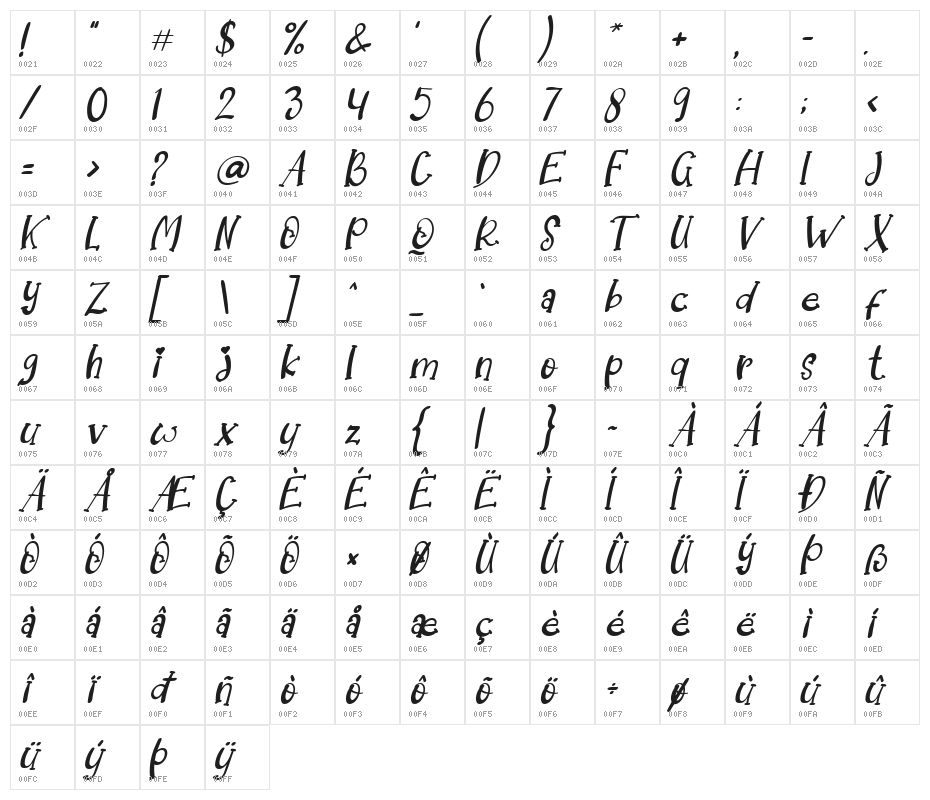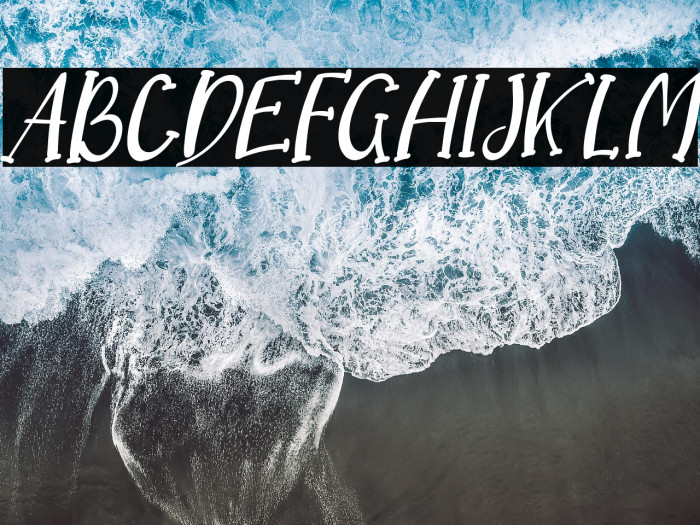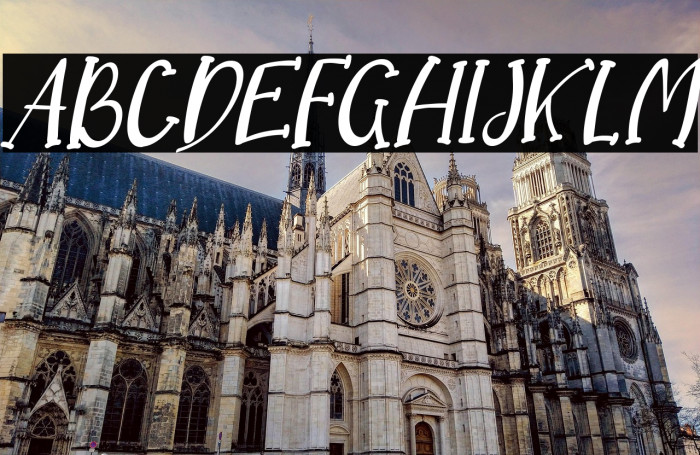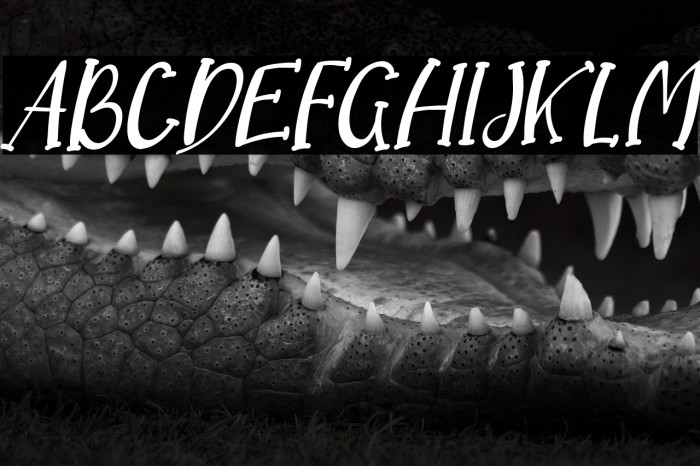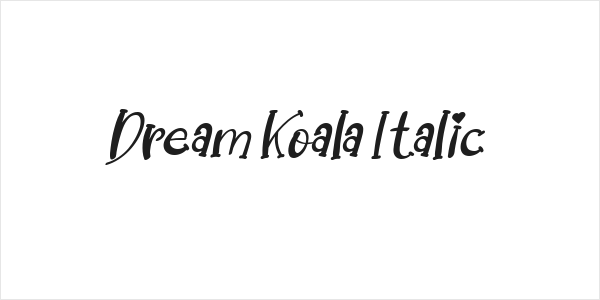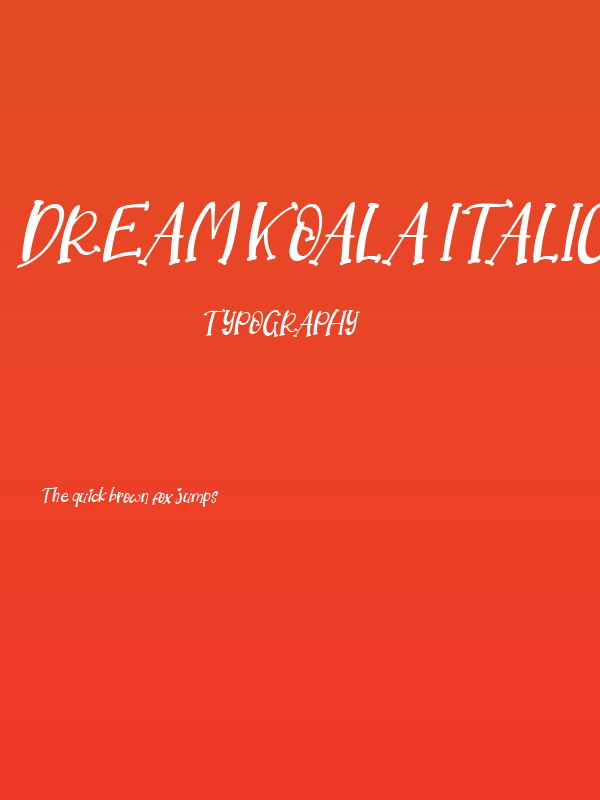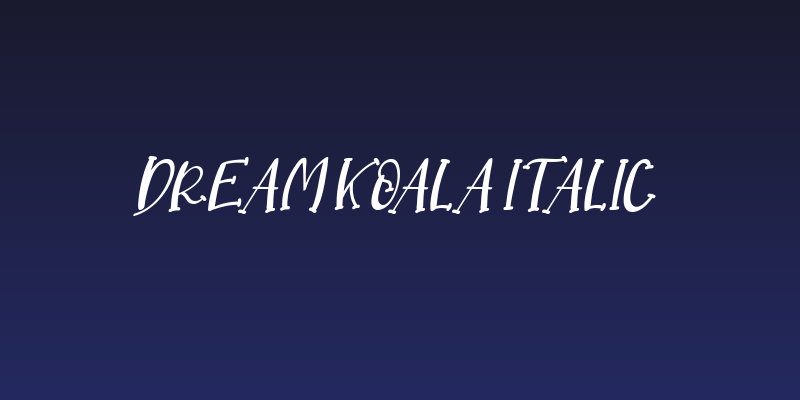
Dream Koala Italic Font
Dream Koala Italic Description
This font features a playful and whimsical design, characterized by its flowing, cursive-like strokes and a slight slant that gives it an italic appearance. The uppercase letters are bold and dynamic, with unique flourishes that add a touch of creativity. The lowercase letters maintain a consistent style, with rounded edges and a smooth flow that enhances readability. Numbers are equally stylized, maintaining the font's overall playful aesthetic. Special characters are creatively designed, with some incorporating heart shapes, adding to the font's charm. This font is ideal for projects that require a fun and engaging visual element.
| Proposed Projects | Ideal for children's books, playful branding, greeting cards, and creative posters. |